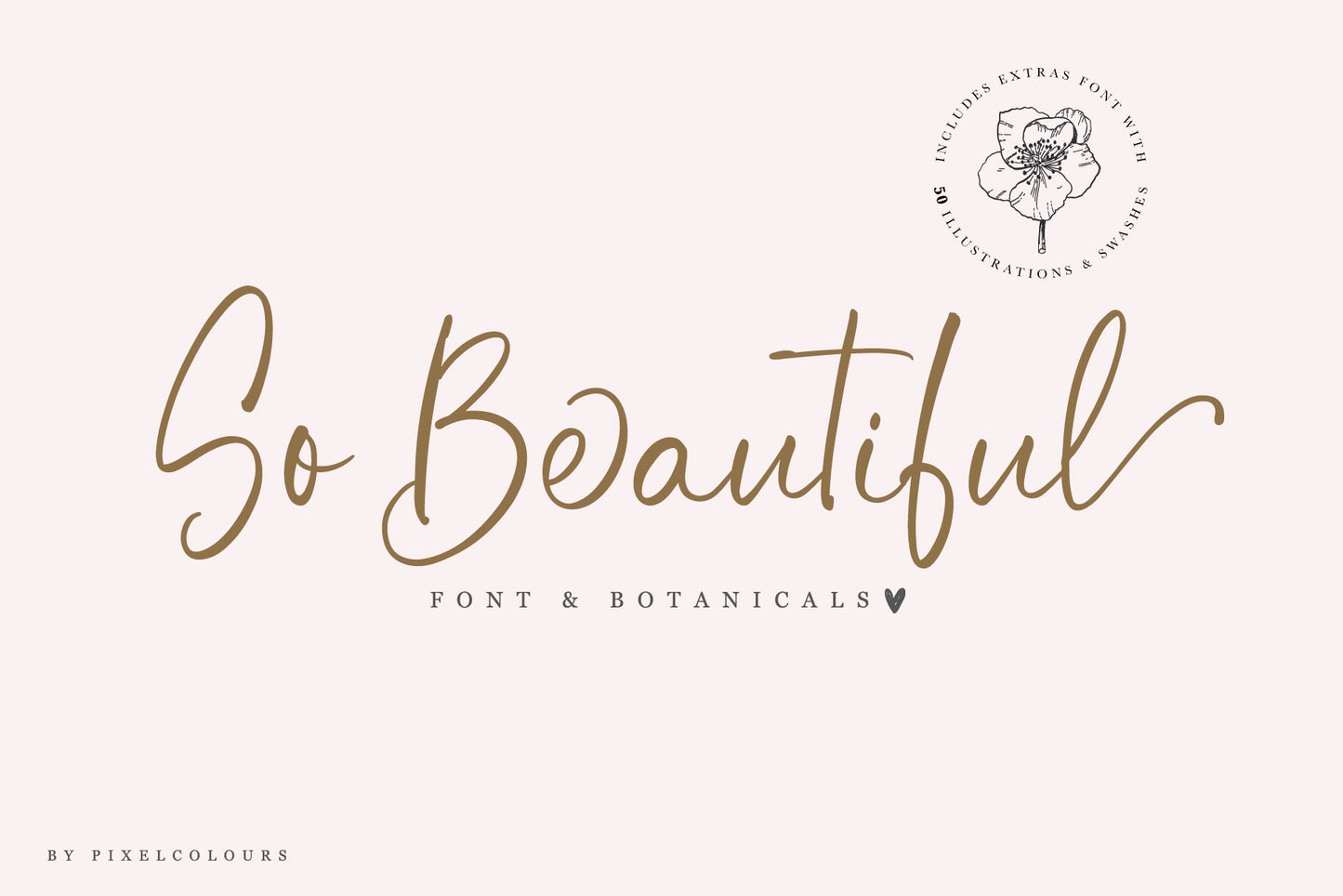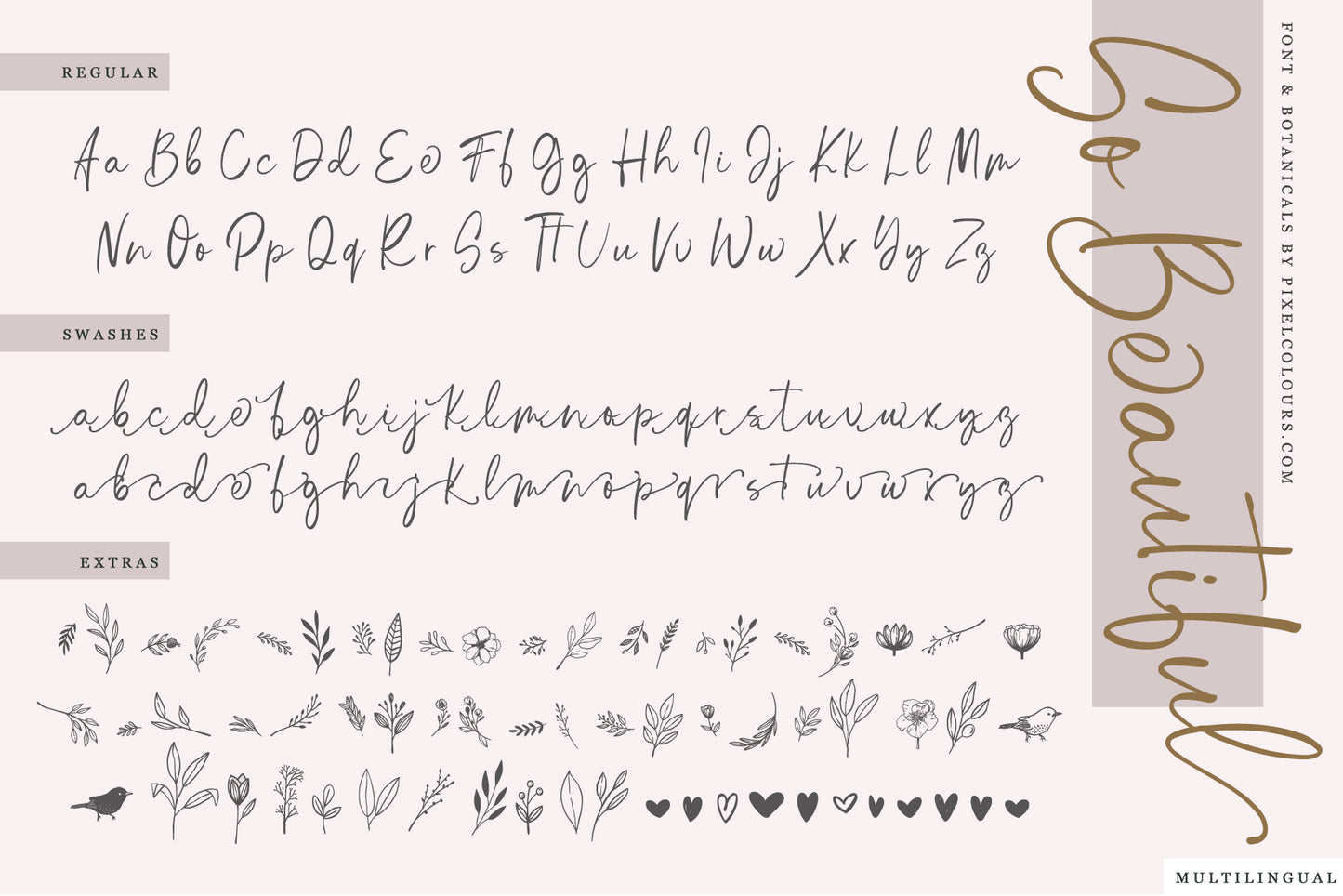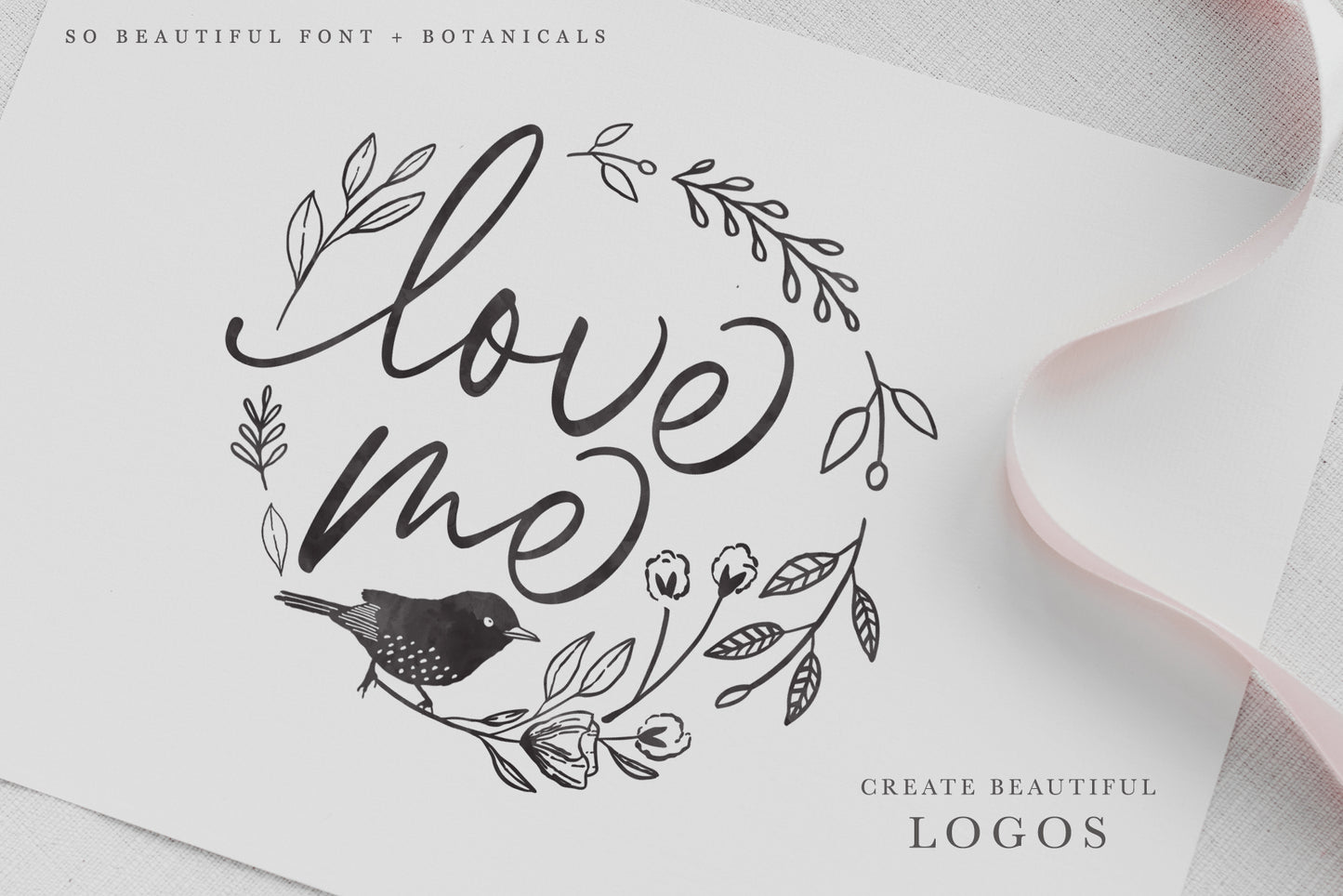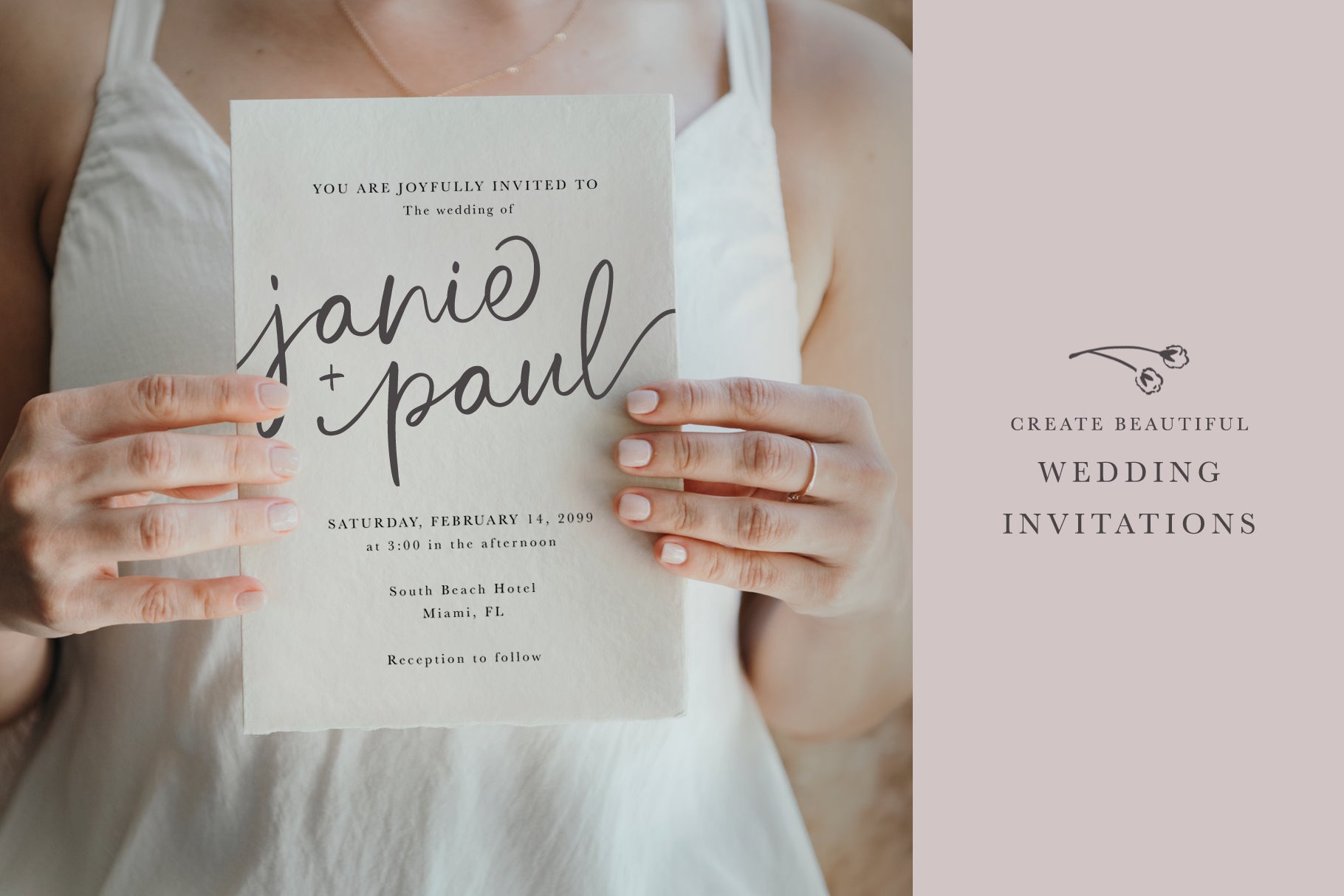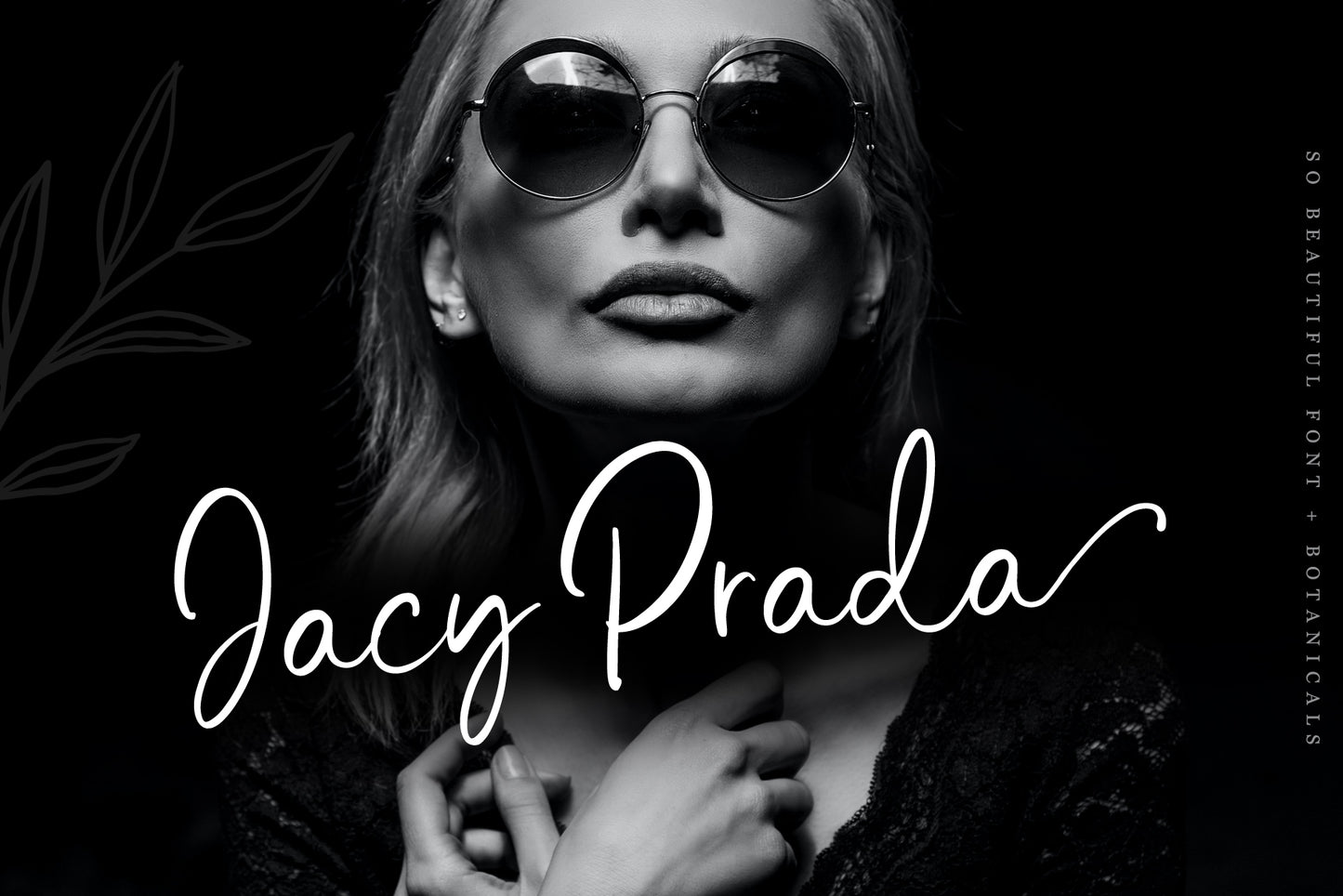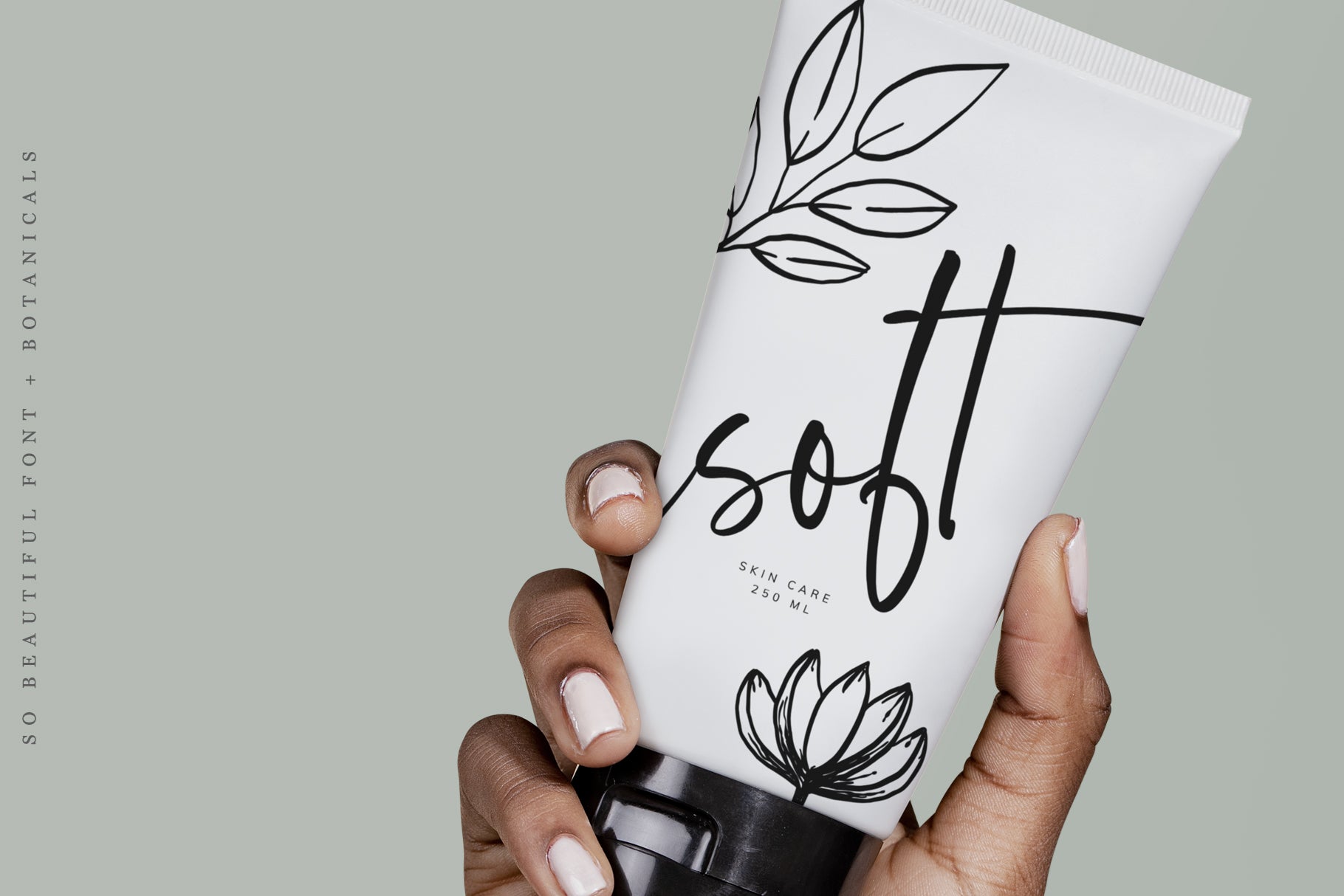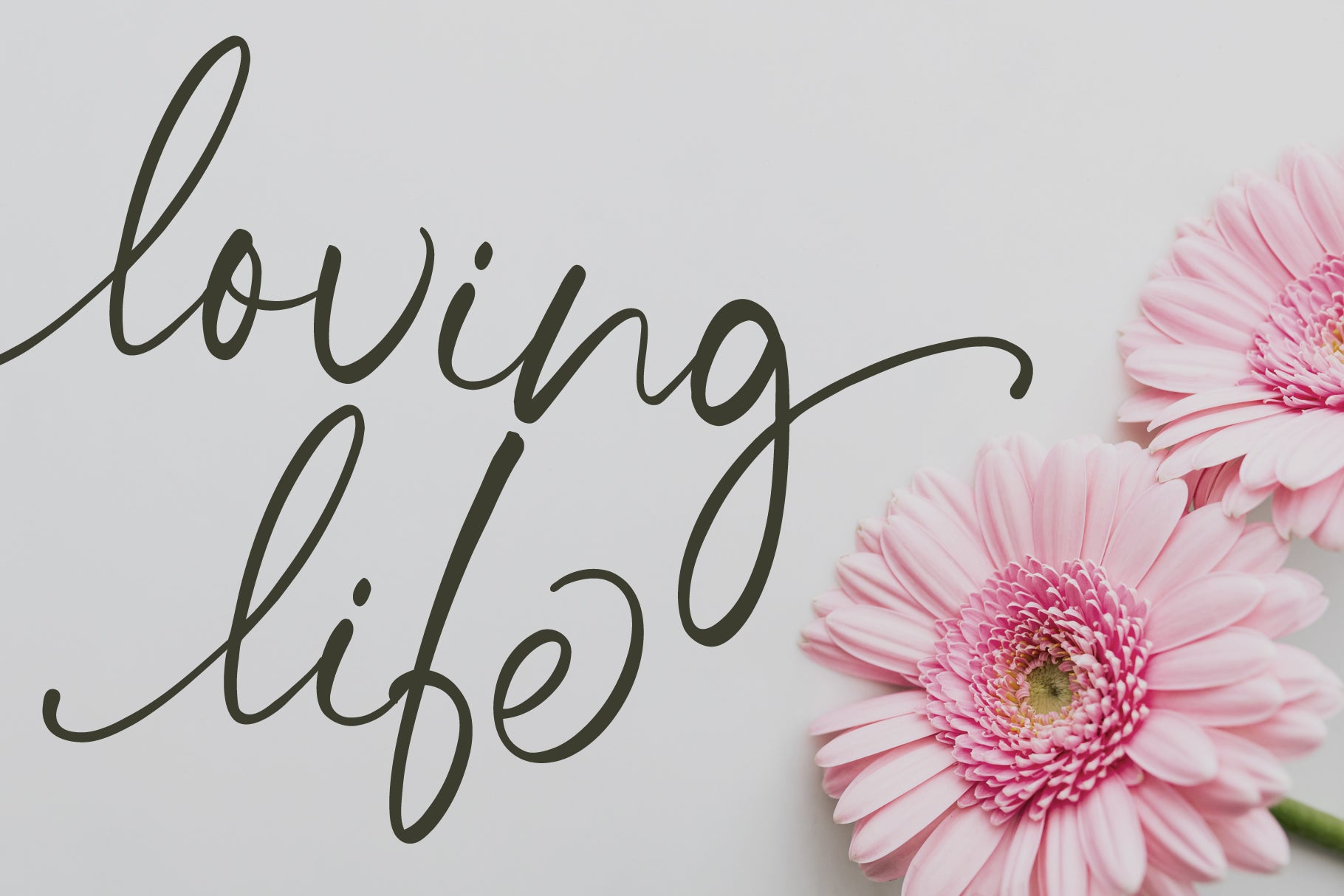
So Beautiful Signature Font
So Beautiful is a handwritten font family that includes pretty swashes and botanical illustrations to create the cutest logos, packaging or any design project with a natural style.
- So Beautiful: the script font
- So Beautiful Swashes: perfect for a unique, elegant style
- So Beautiful Extras: more than 50 hand drawn botanical illustrations to combine with the font